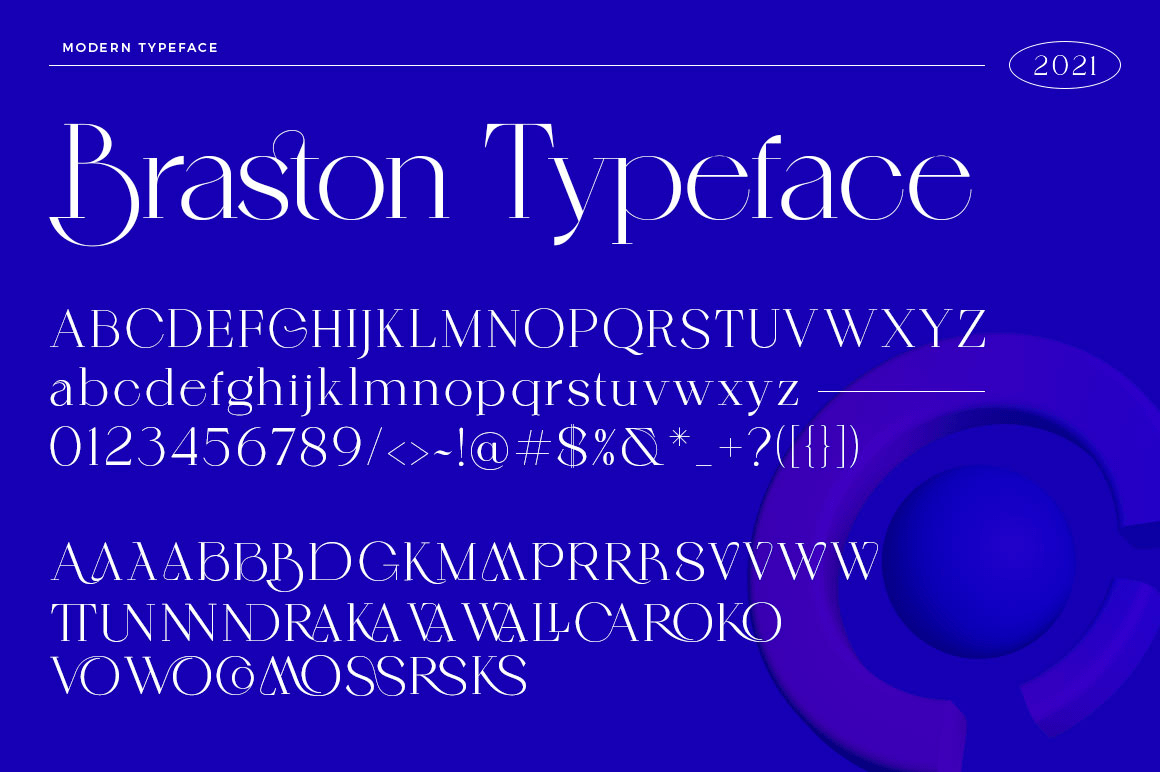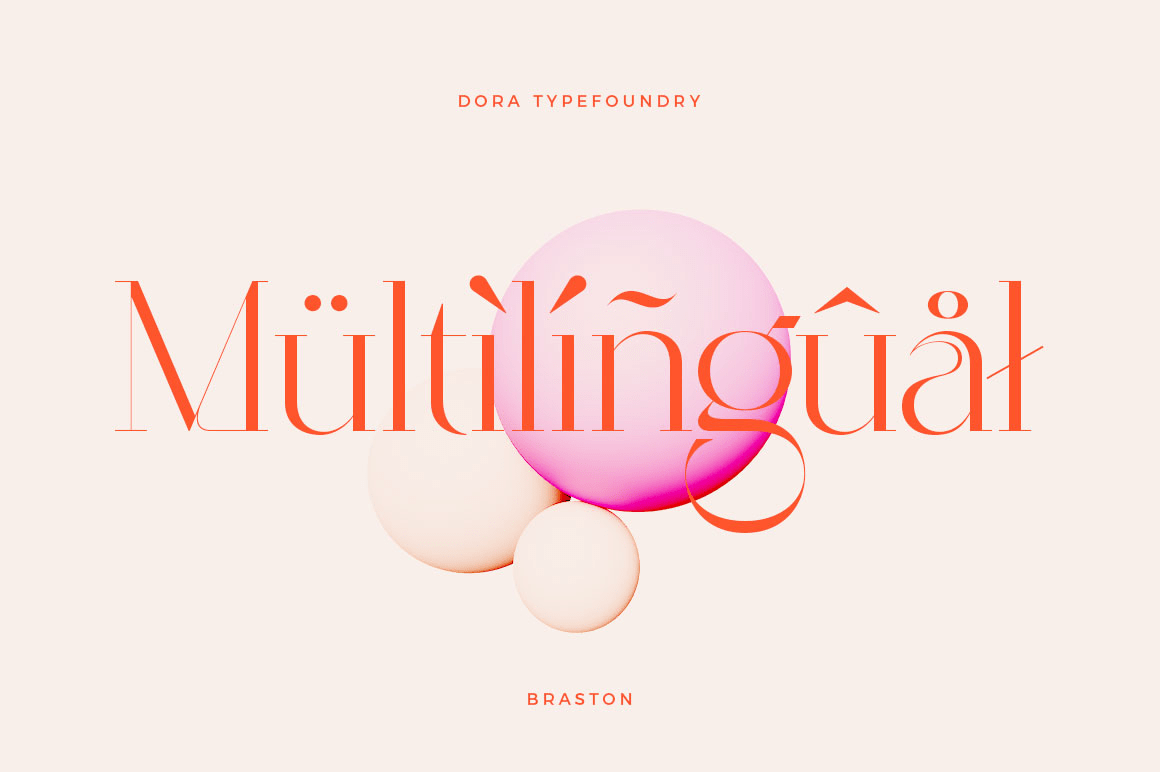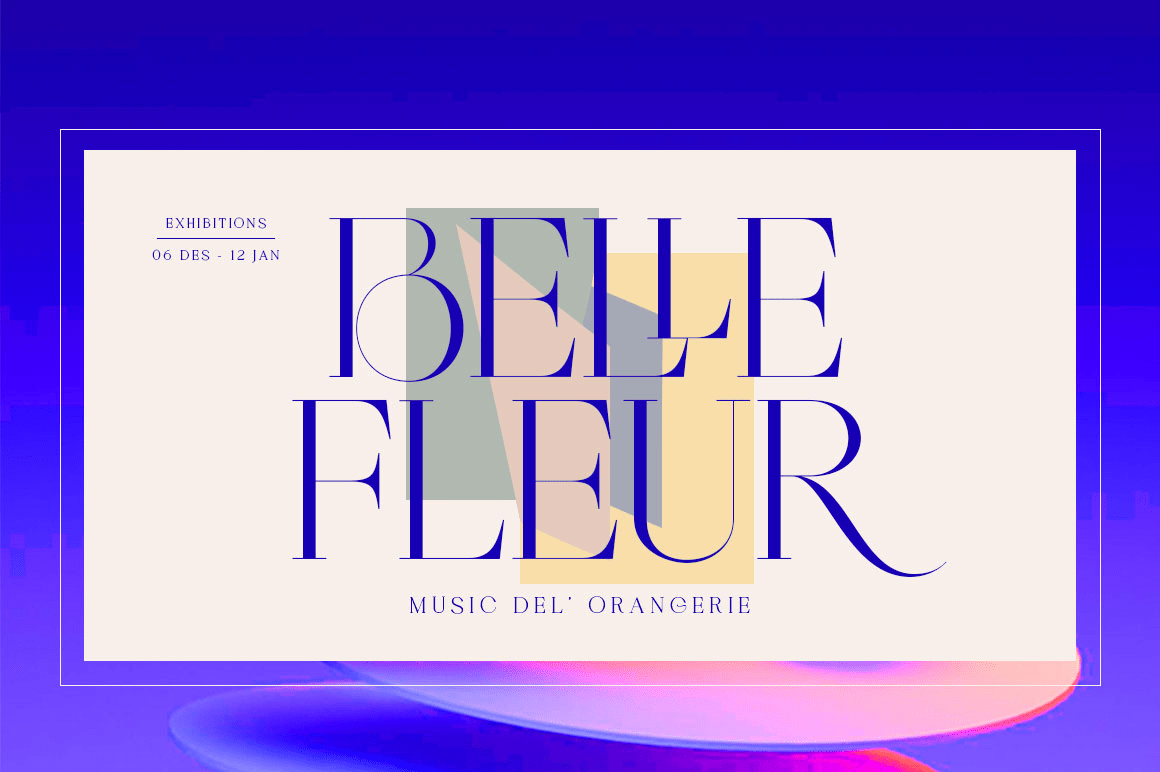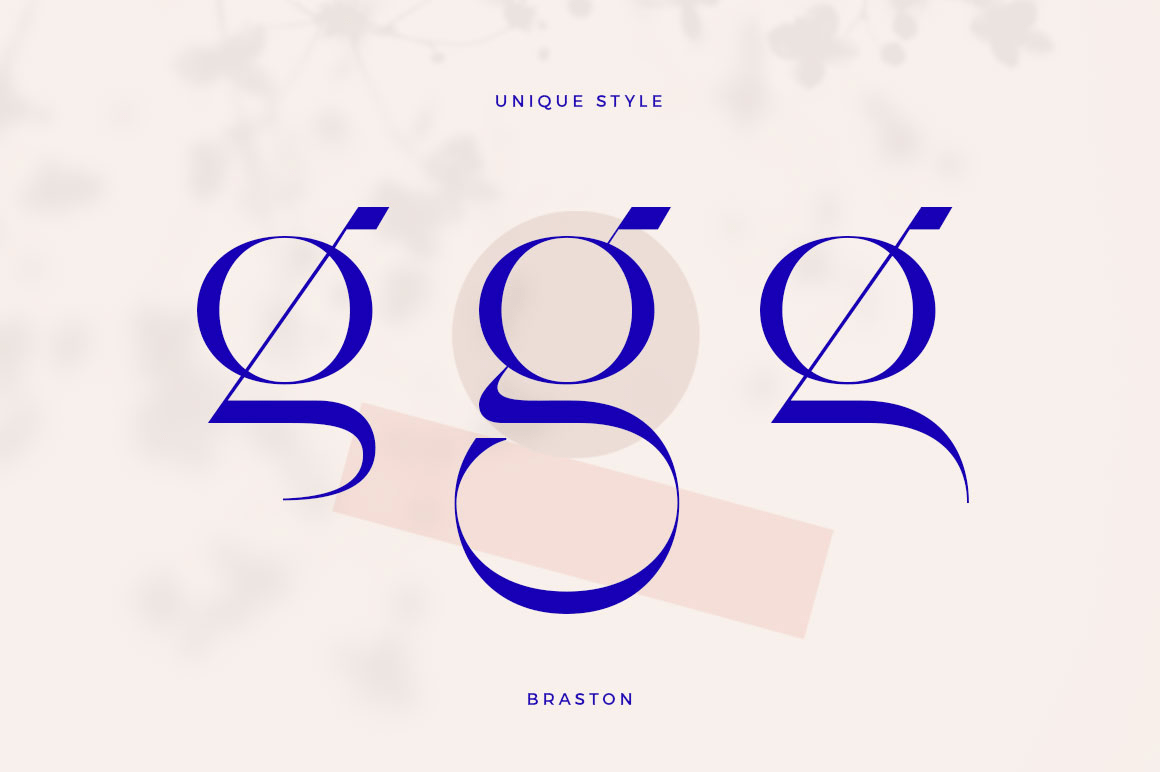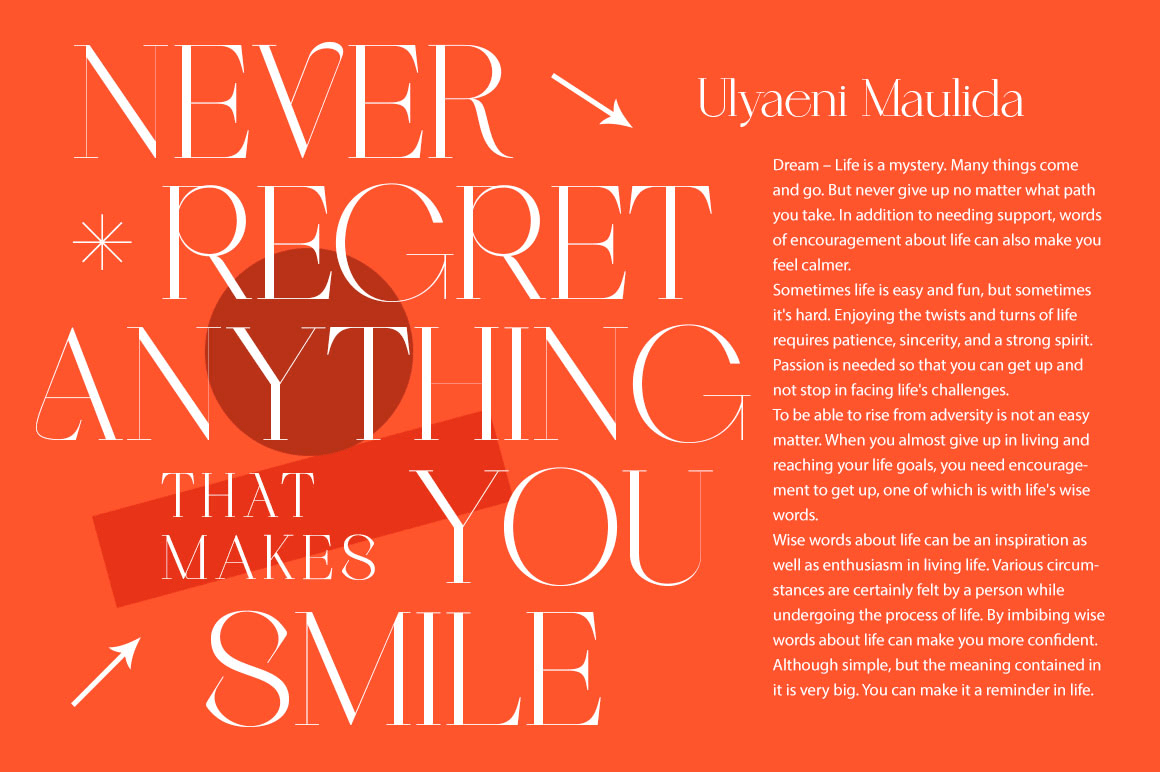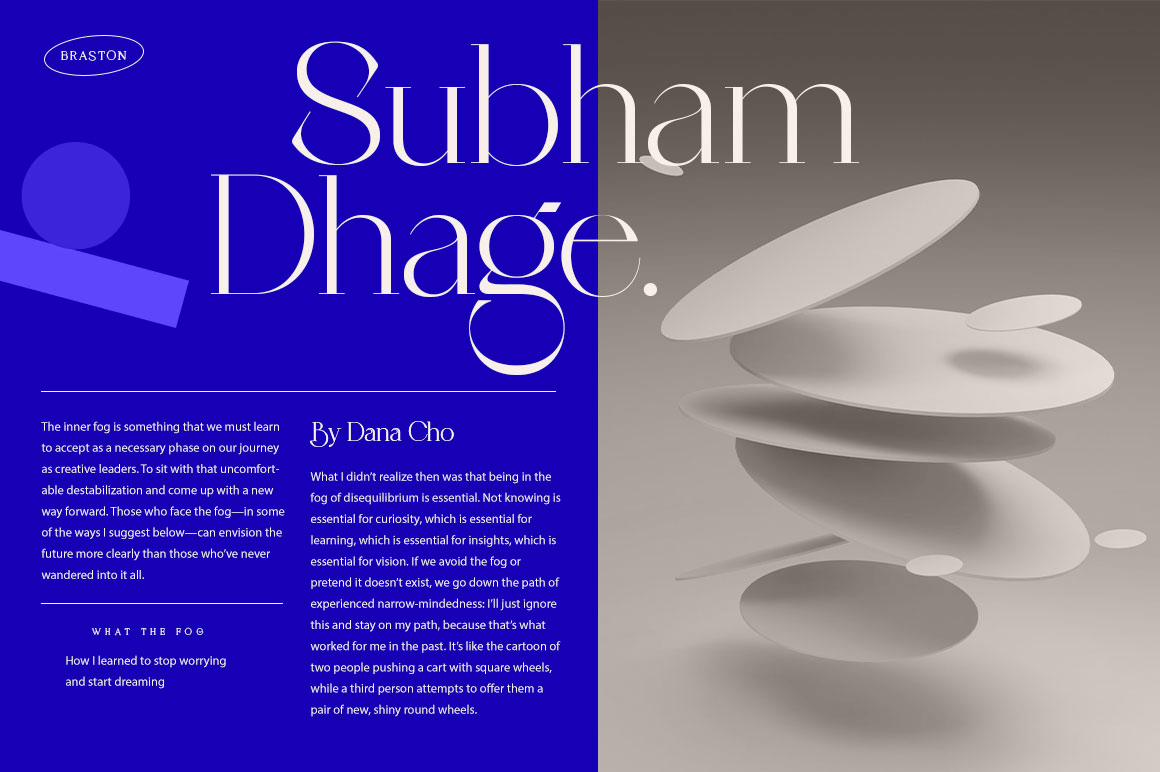
About Braston
Introducing our new typeface, Braston – a modern, unique and decorative serif typeface that comes with a binder and alternative characters that are perfect for creating variety in your designs. Braston is a mix of sweet curves with lowercase sets and…